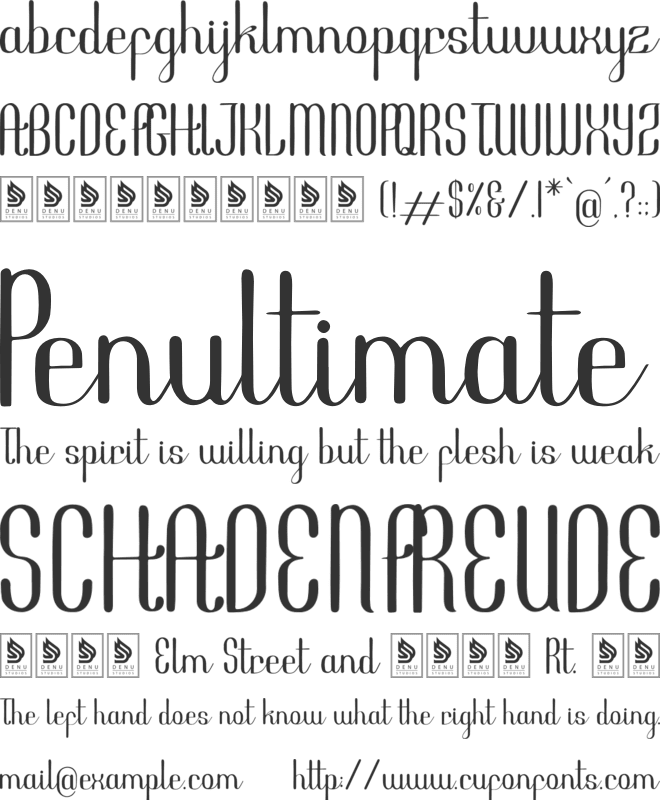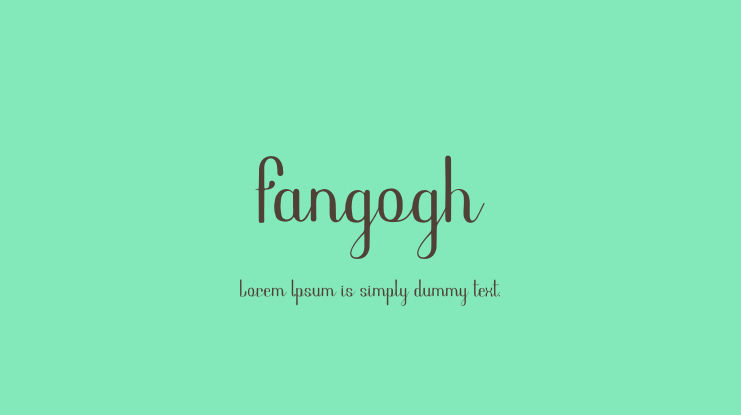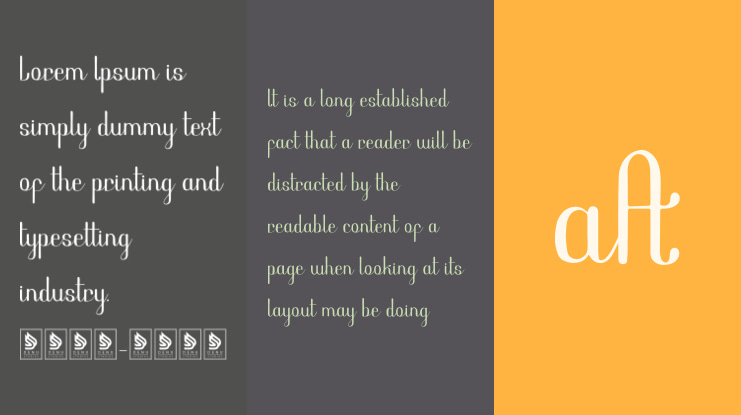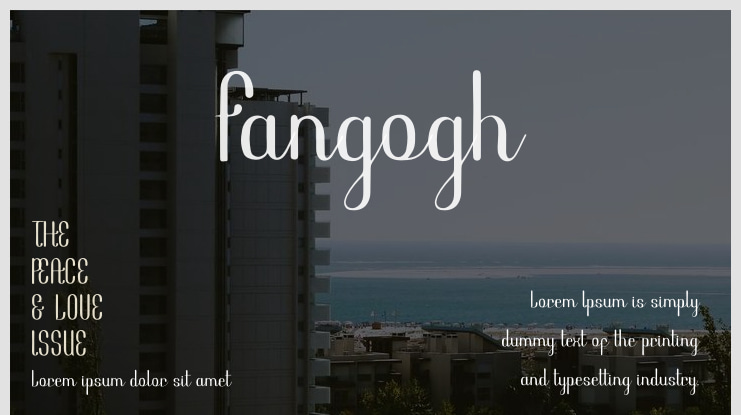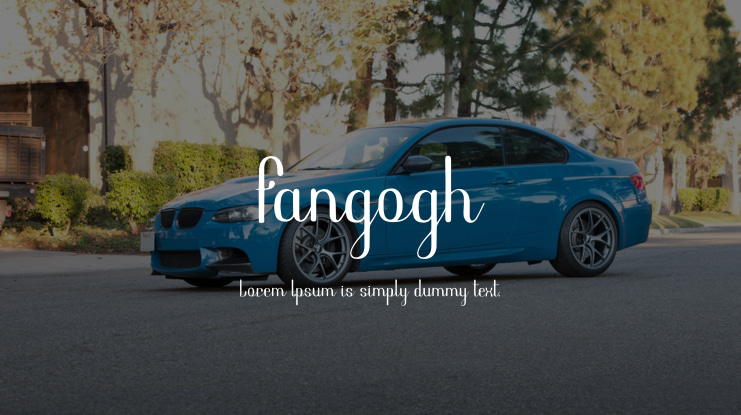
Fangogh | Modern Script Font is perfect for a variety of projects including logos, branding, homeware designs, product packaging, mugs, quotes, posters, shopping bags, t-shirts, book covers, name cards, invitations, greeting cards, labels, photography, watermarks, special events, and any other projects that require a touch of Modern Script Font.